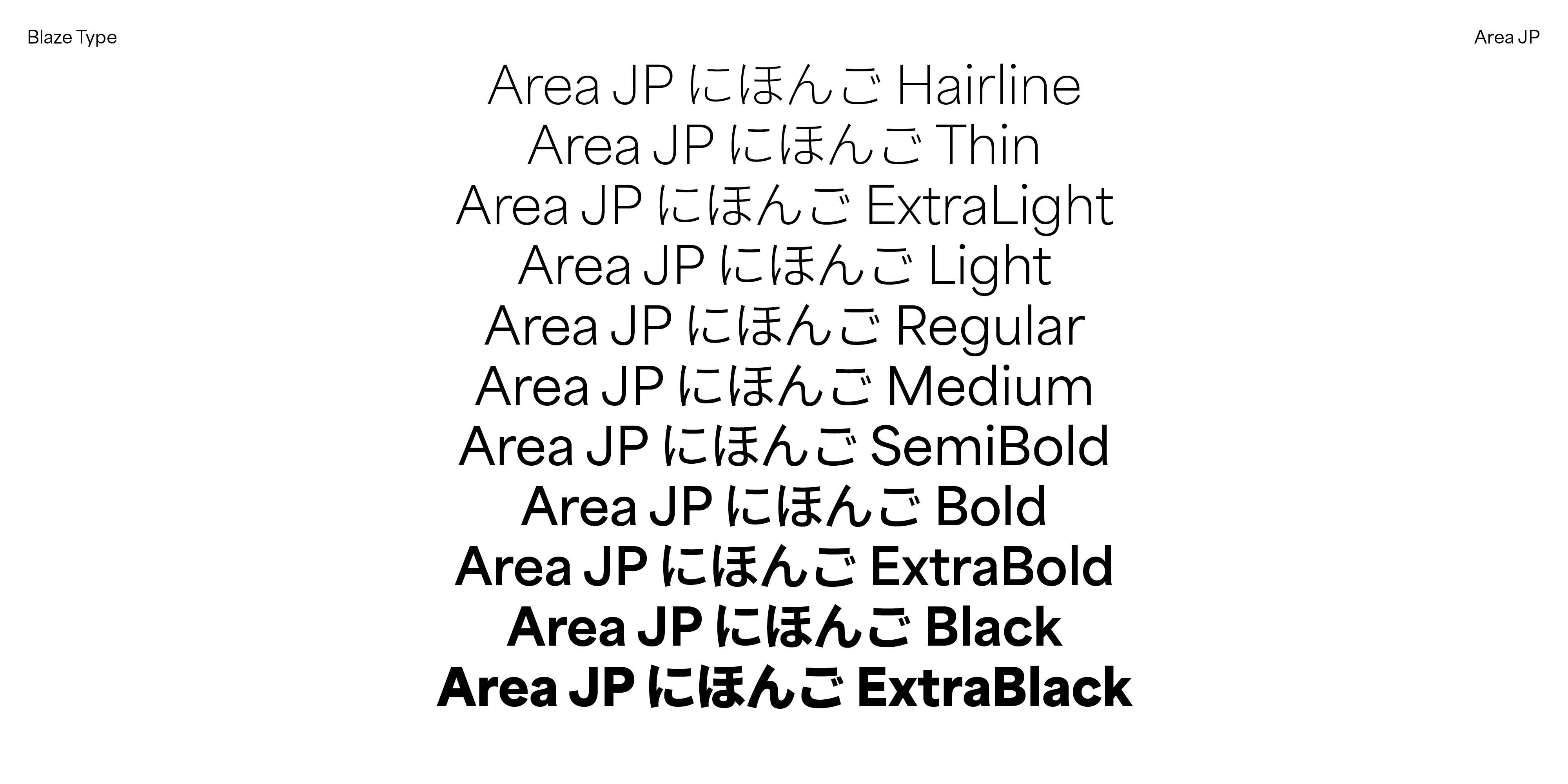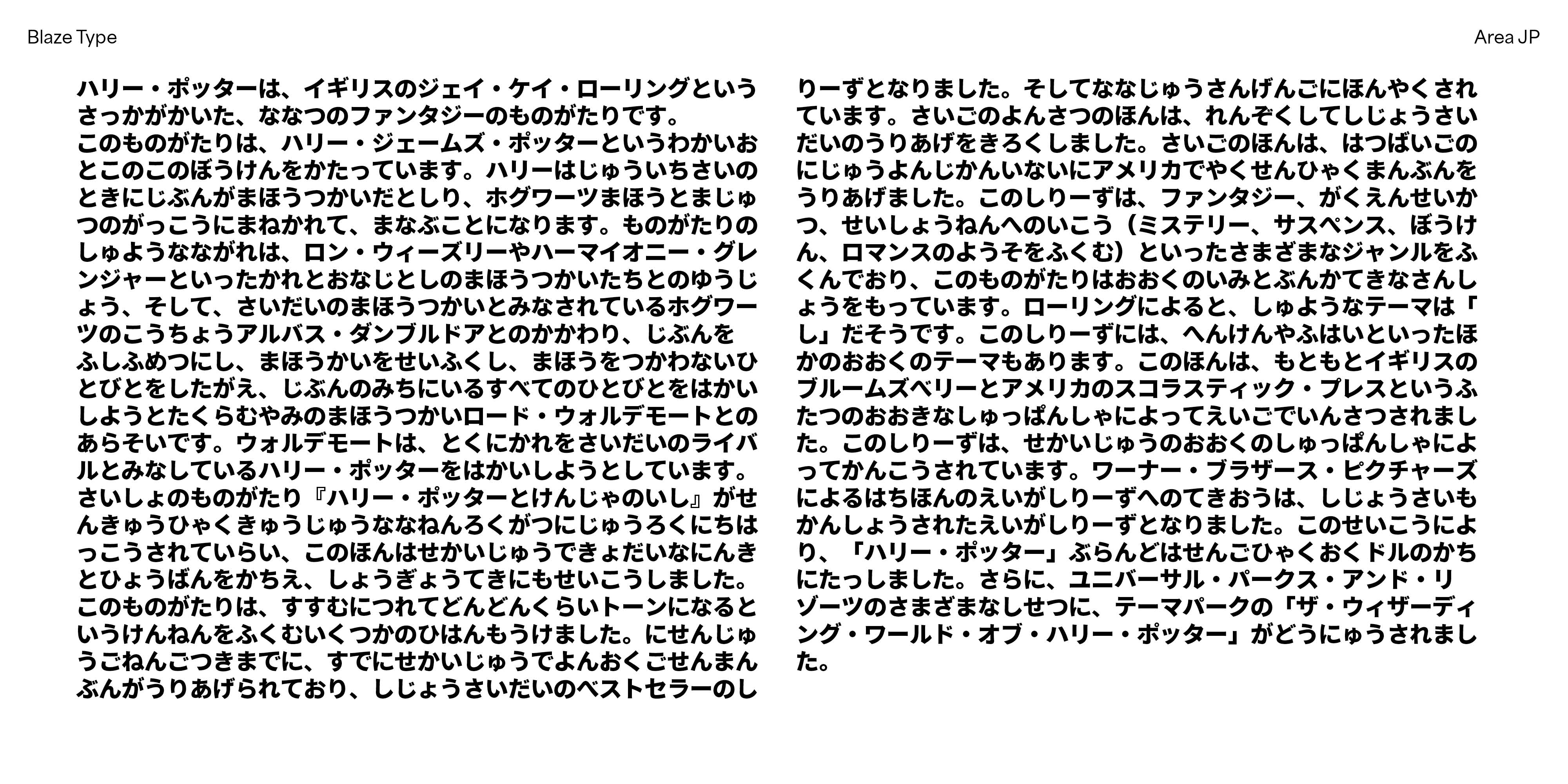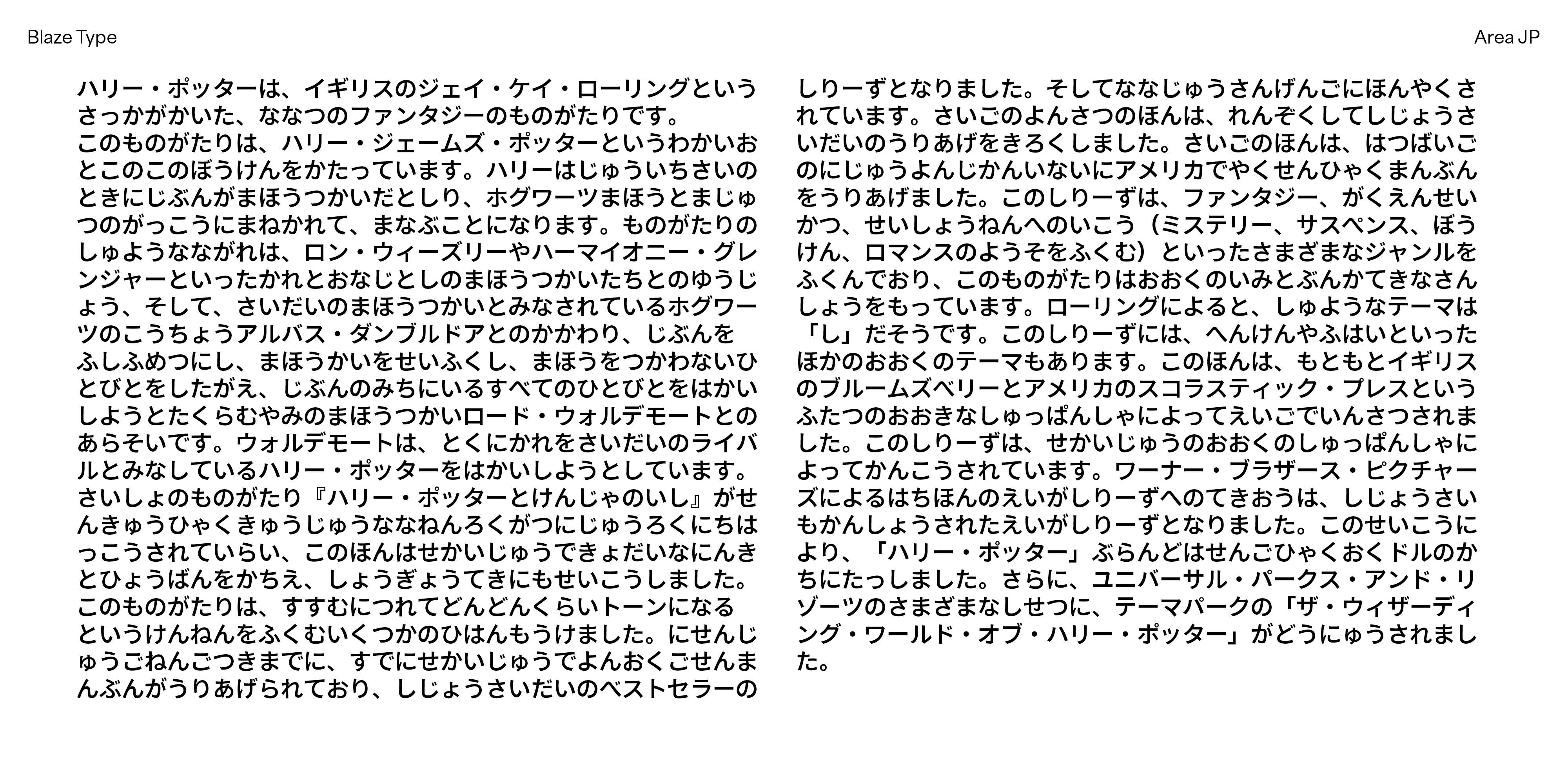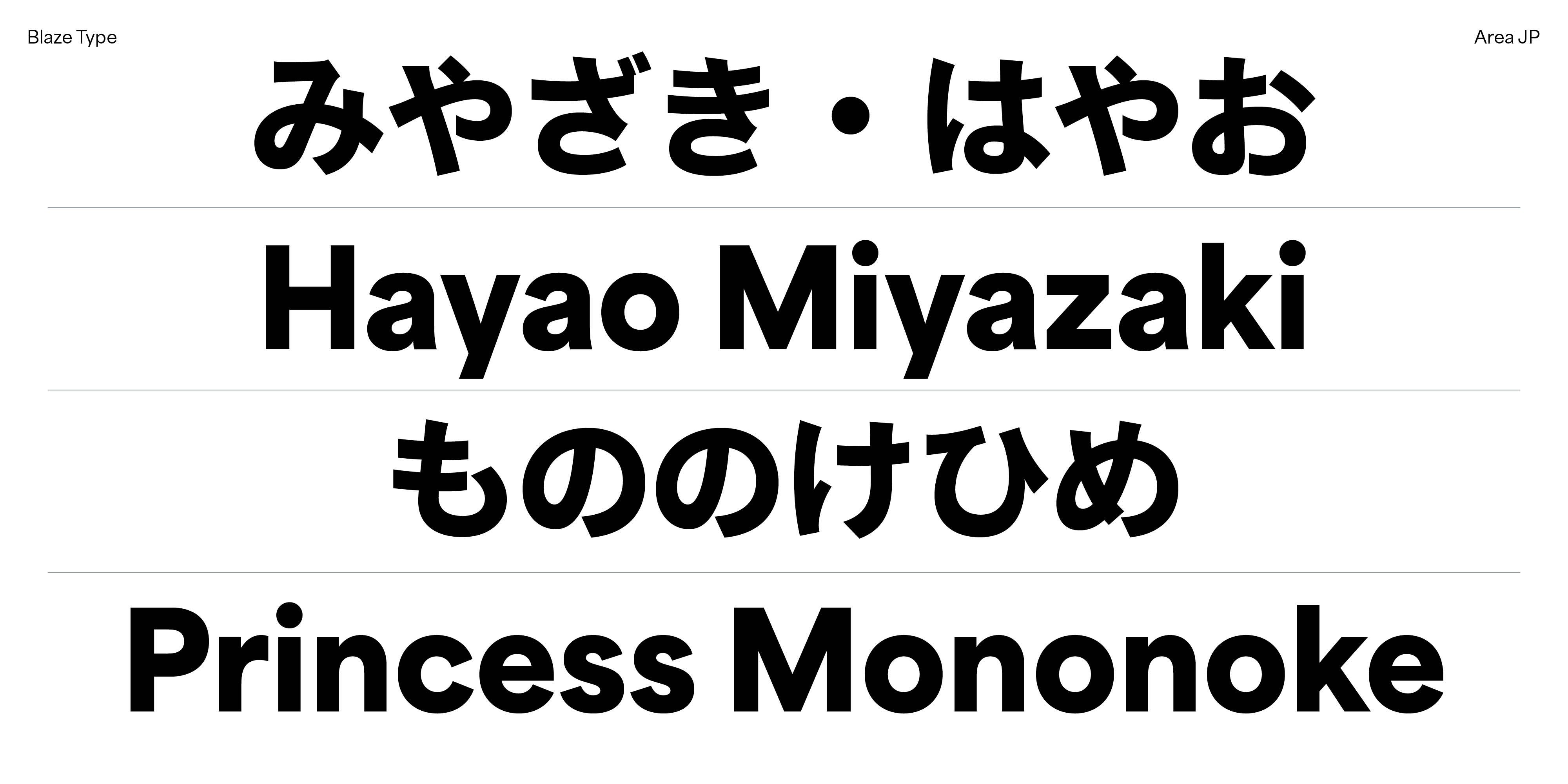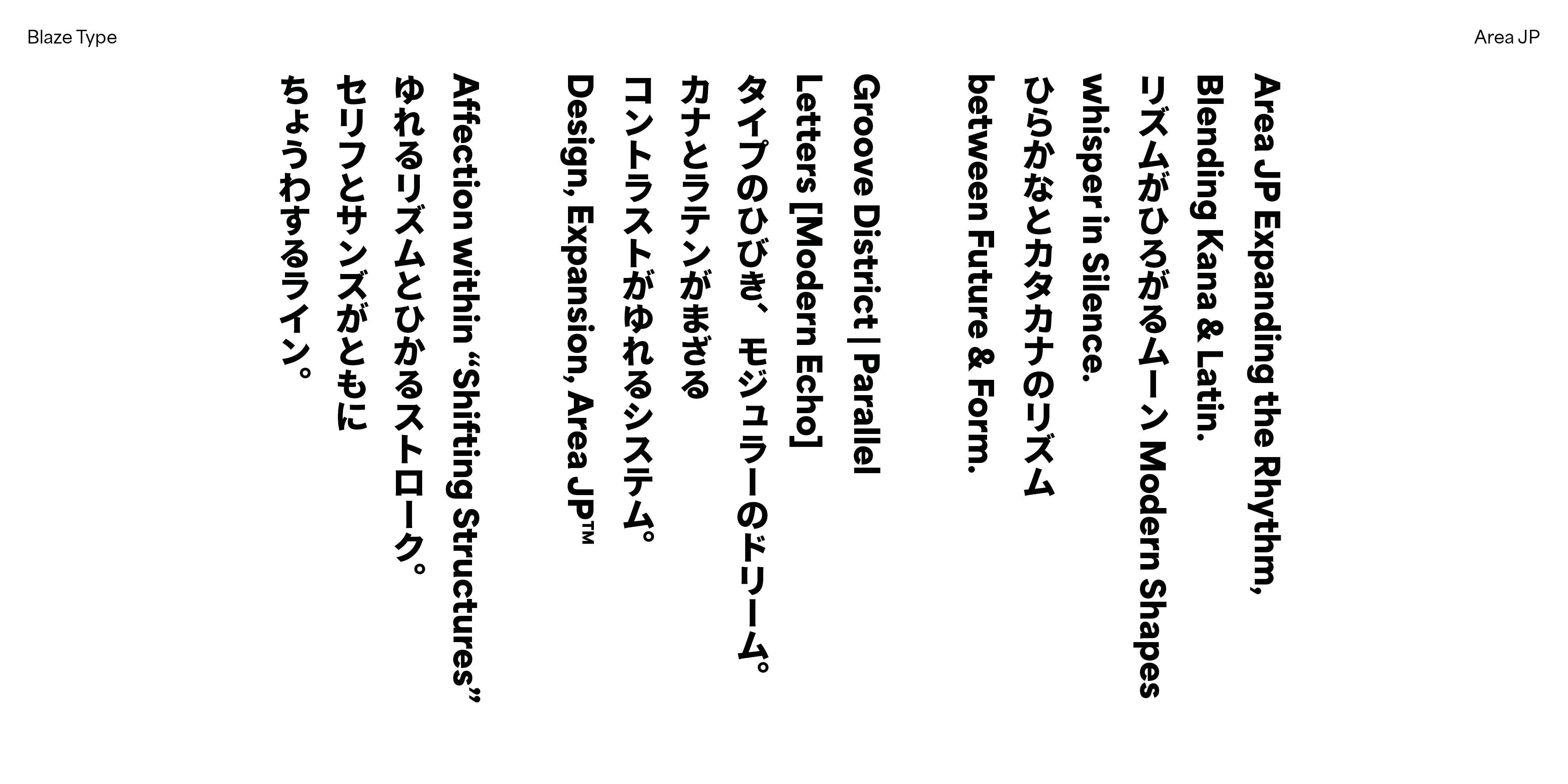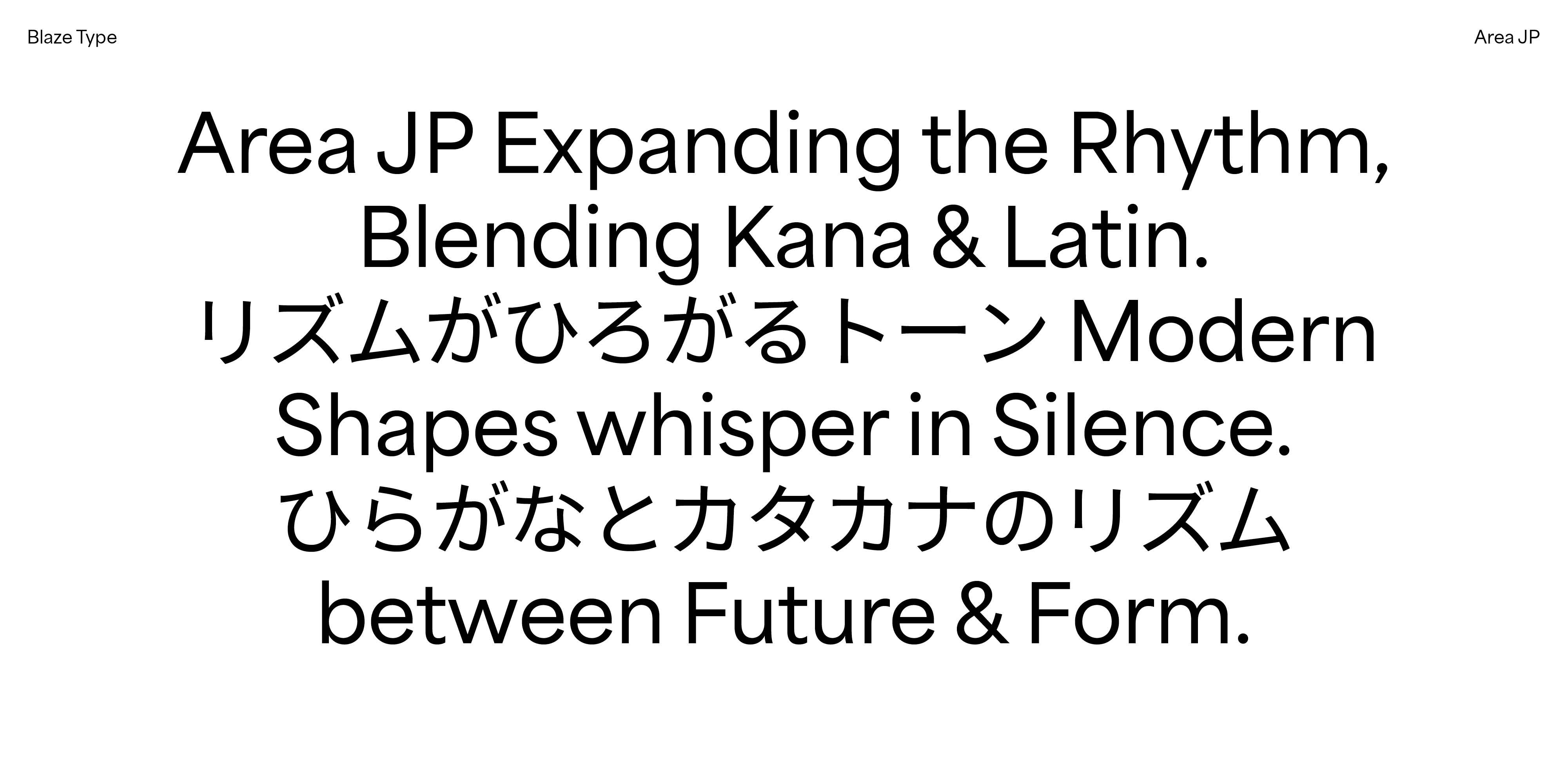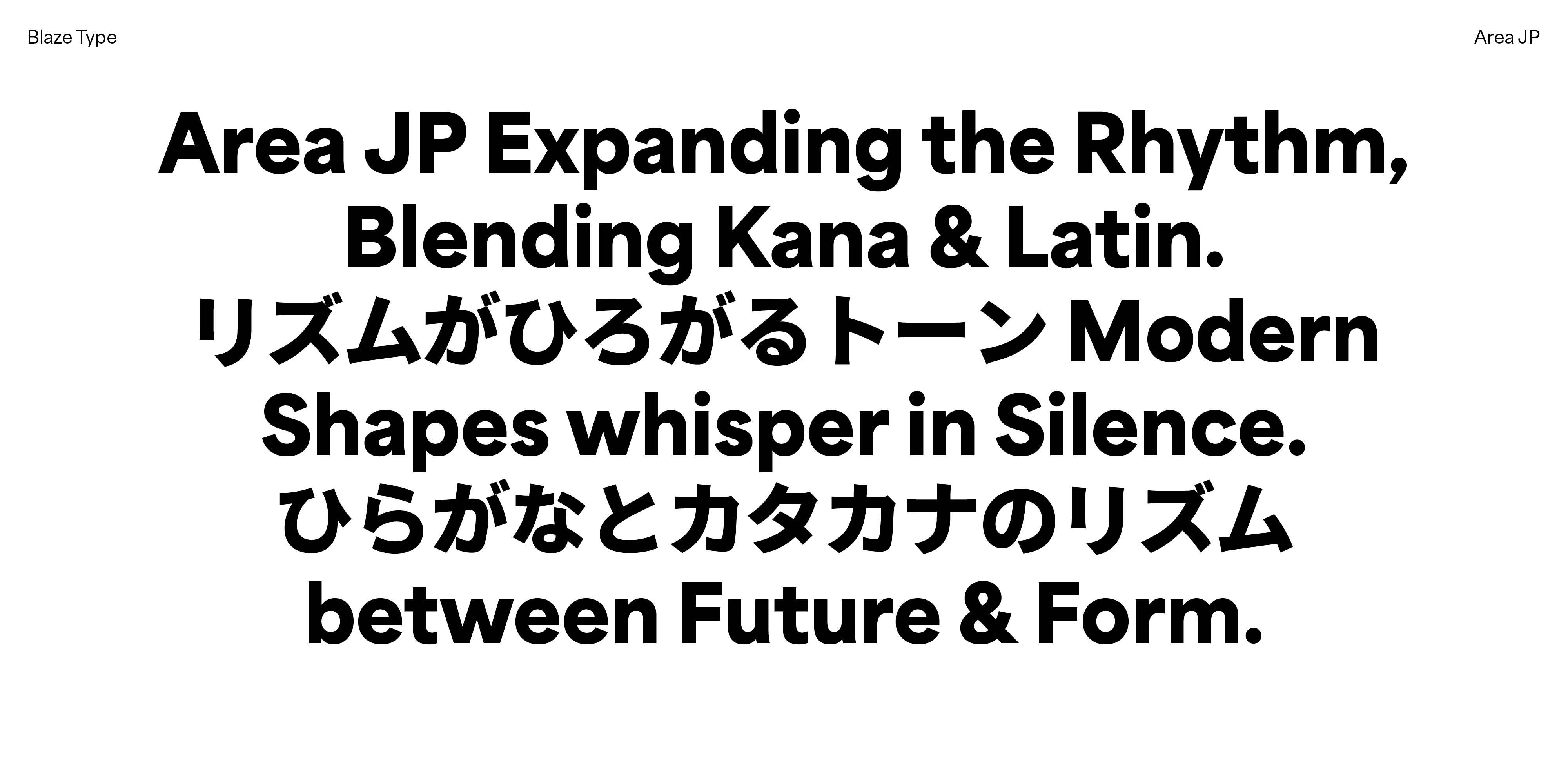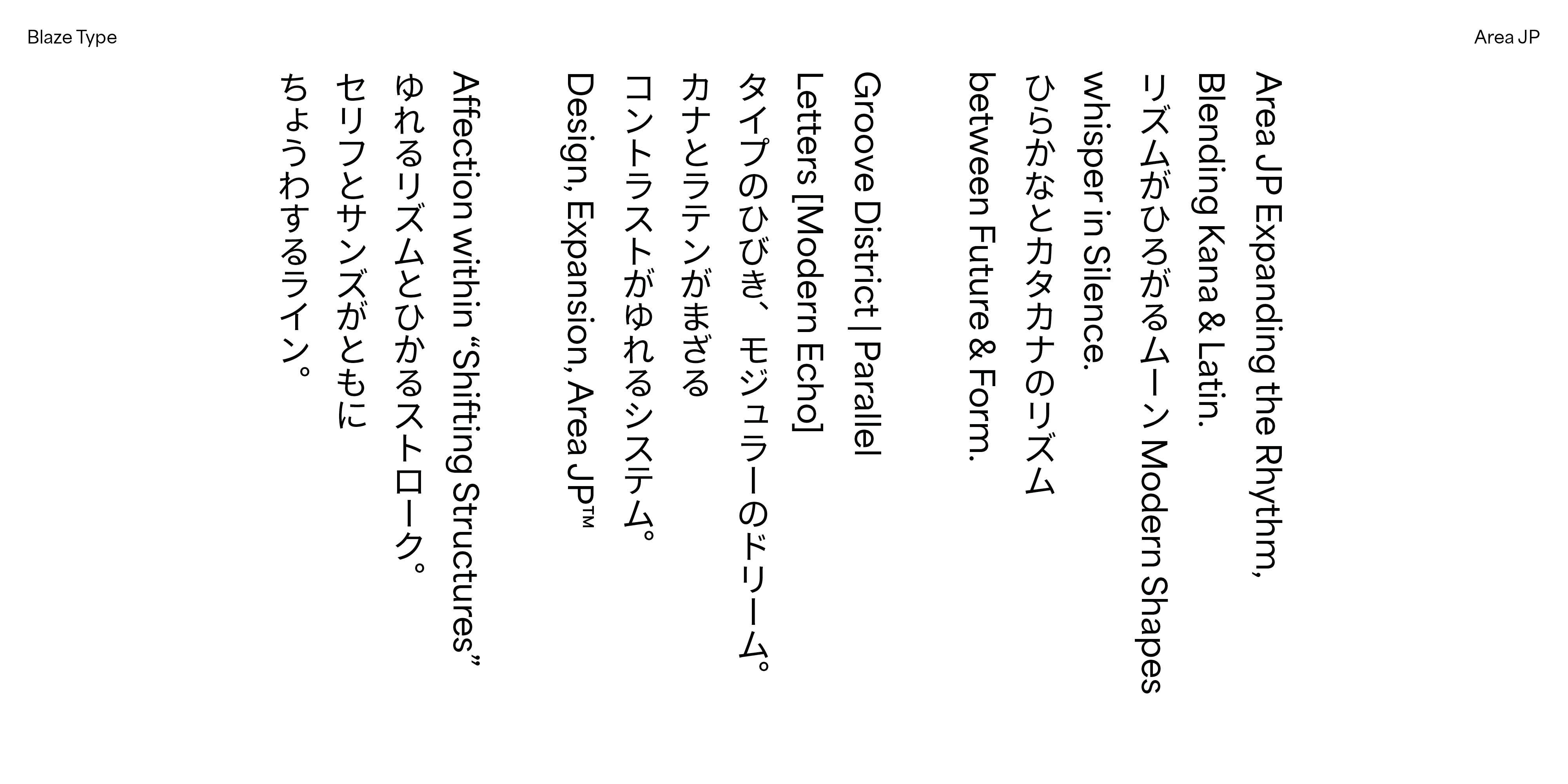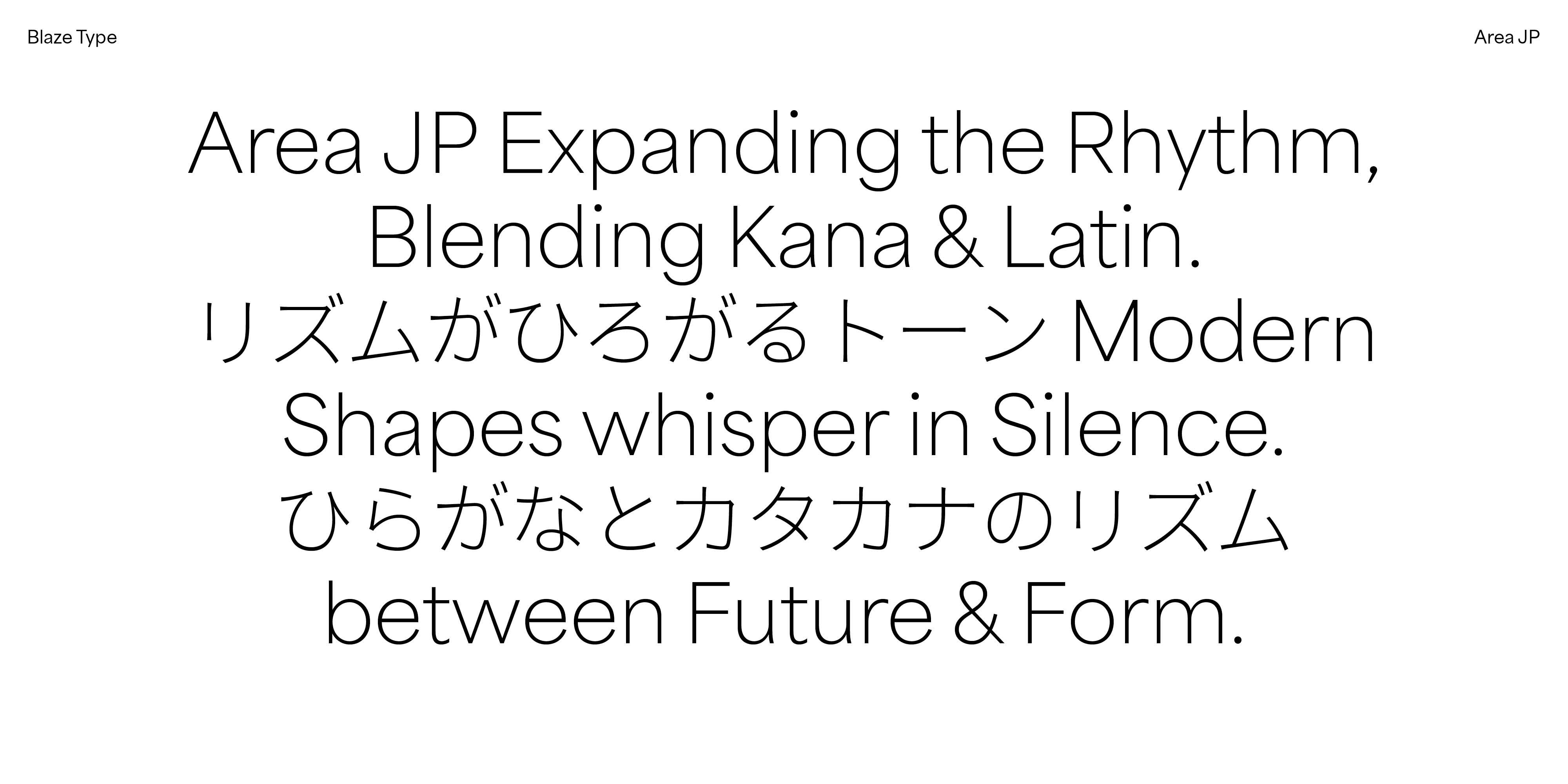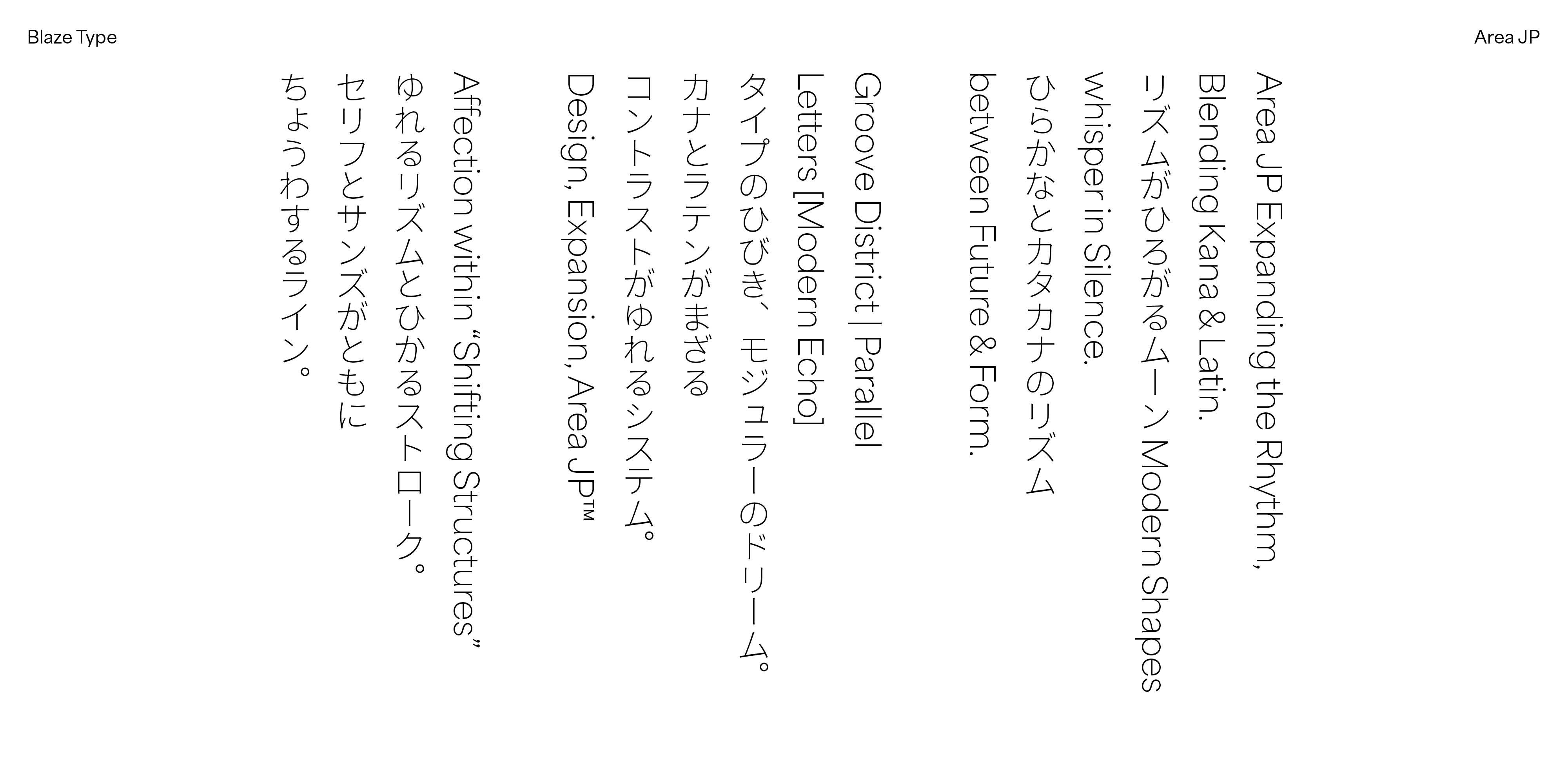
Area JP にほん
Area JP is the Latin+Japanese (Kana) support of Area Font Family. Supporting both Horizontal and Vertical writing system.
Area is a variable geometric font family that takes inspiration from architecture. Like any piece of architecture, the design process of Area started with a stable modular geometrical structure. Once the foundations are laid, its envelope slowly unfolds into a more quiet neogrotesque robe, offering a solid base for any reading experience thanks to its smooth grey.
Area JP は、Area Font Family におけるラテン文字と日本語(かな)をサポートする書体です。横書き・縦書きの両方に対応しています。
Area は、建築から着想を得た可変ジオメトリック・フォントファミリーです。建築と同様に、そのデザインプロセスは、安定したモジュール構造という幾何学的な基盤から始まりました。基礎が築かれるにつれて、フォルムは次第に静かでニュートラルなネオグロテスクへと展開していきます。滑らかなグレートーンにより、あらゆる読書体験に適した、確かな可読性を提供します。